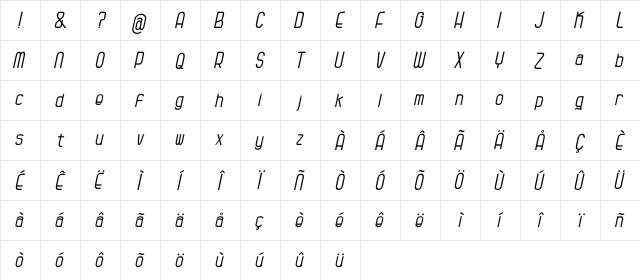
Kagura Italic Italic
Design Context for Kagura Italic Typeface
Kagura Italic takes a measured approach to typography — its balanced proportions and neutral character make it a reliable workhorse for both digital and print work. The slanted form adds forward momentum and visual energy.
Pro Tip: Use Kagura Italic for emphasis, pull quotes, and subheadings where its slanted energy can add rhythm to the layout.